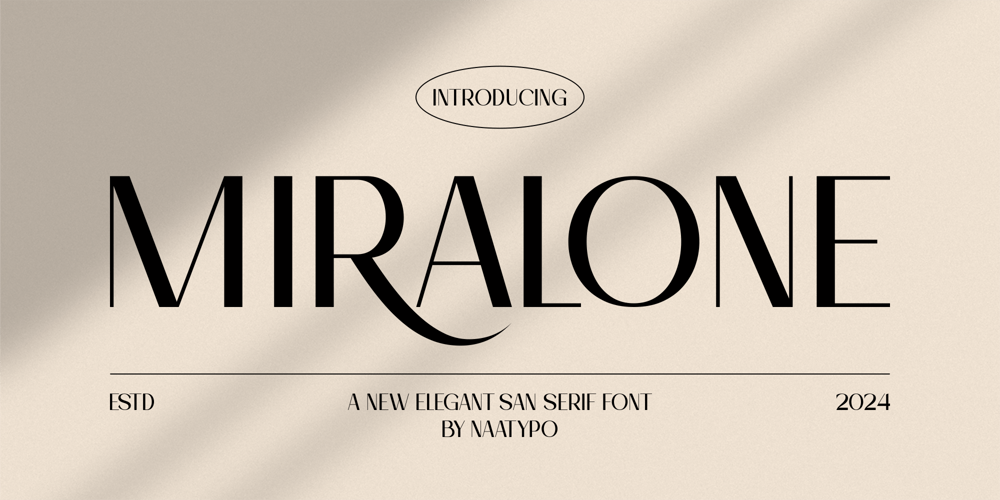
Miralone Font Family was designed by Kurnia Elis Setyorini and published by Naatypo. Miralone contains 1 styles and family package options. Savor the intricate specificity and bespoke allure of the Miralone font. Weaving precious sentiments and cherished memories into your creations, Miralone makes them stand out. Synthesized to boost and beautify your typographical landscapes, Miralone’s distinct flair illuminates your work, reveling in its originality. Owing to its inherent versatility, Miralone seamlessly merges with various styles, assuring pristine expression of your visual narratives. From the most minimalistic designs to the most elaborate ventures, its flawless integration makes a statement, capturing every detail and complexity with grace.